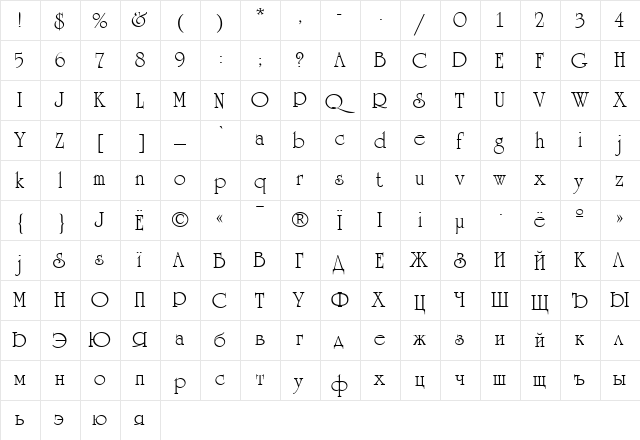
AG_University Regular
Design Context for AG_University Typeface
AG_University is a composed and adaptable typeface that performs quietly and consistently across a wide range of design contexts.